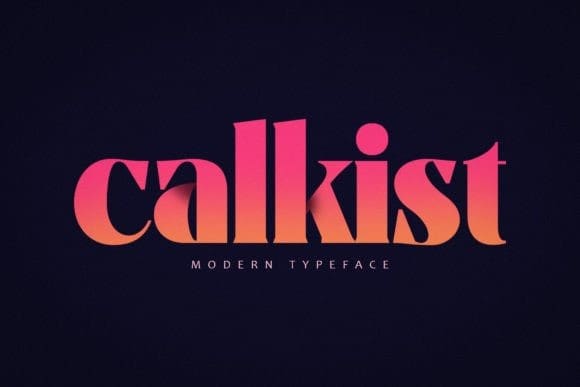
Calkist Font
Calkist Font is a captivating blend of style and innovation, boasting uniquely-shaped letterforms that catch the eye. Its modern design exudes sophistication, making it perfect for headlines, branding, and creative projects where you want to stand out. With its sleek lines and distinctive characters, it adds a touch of elegance to any design.